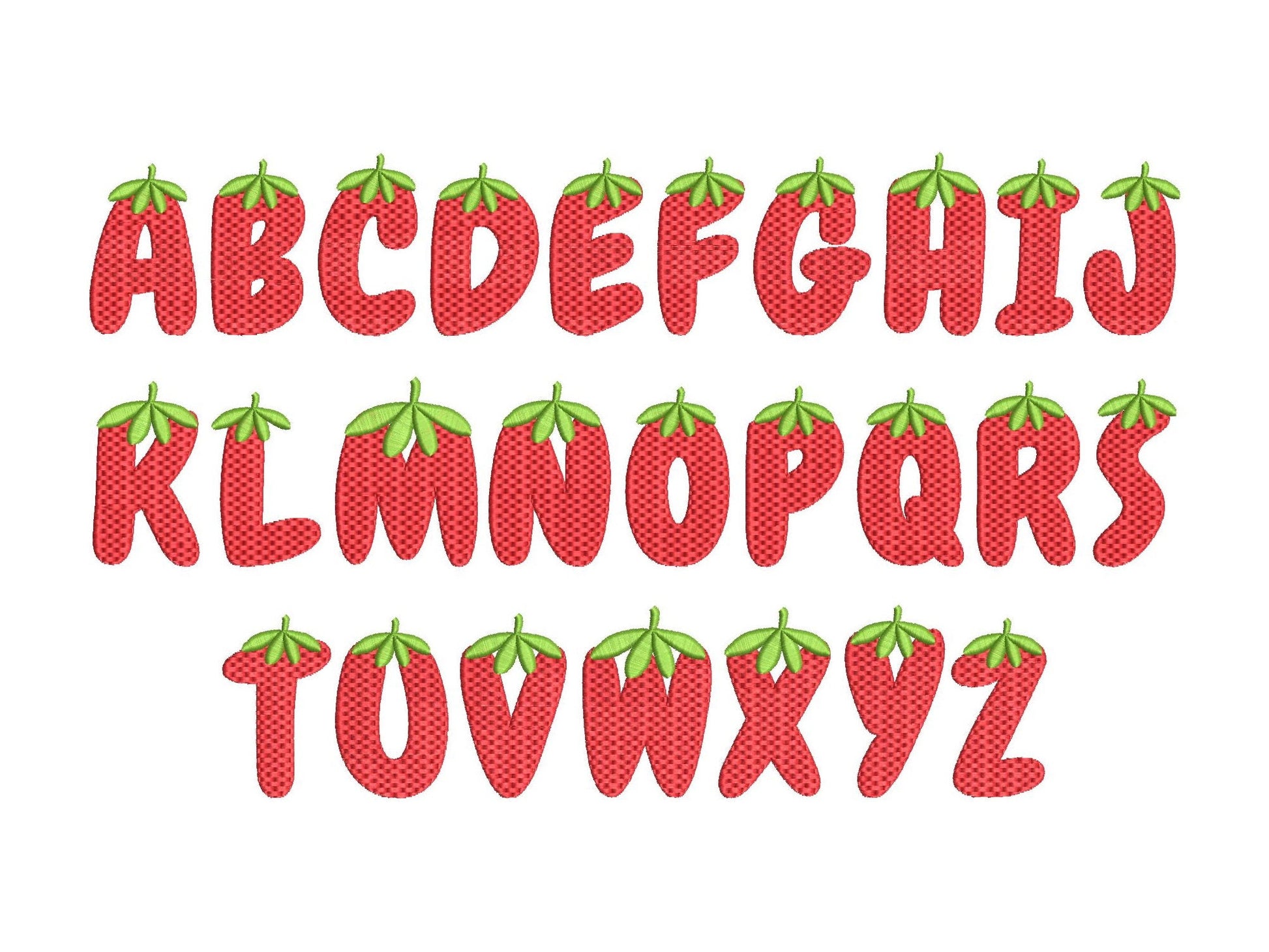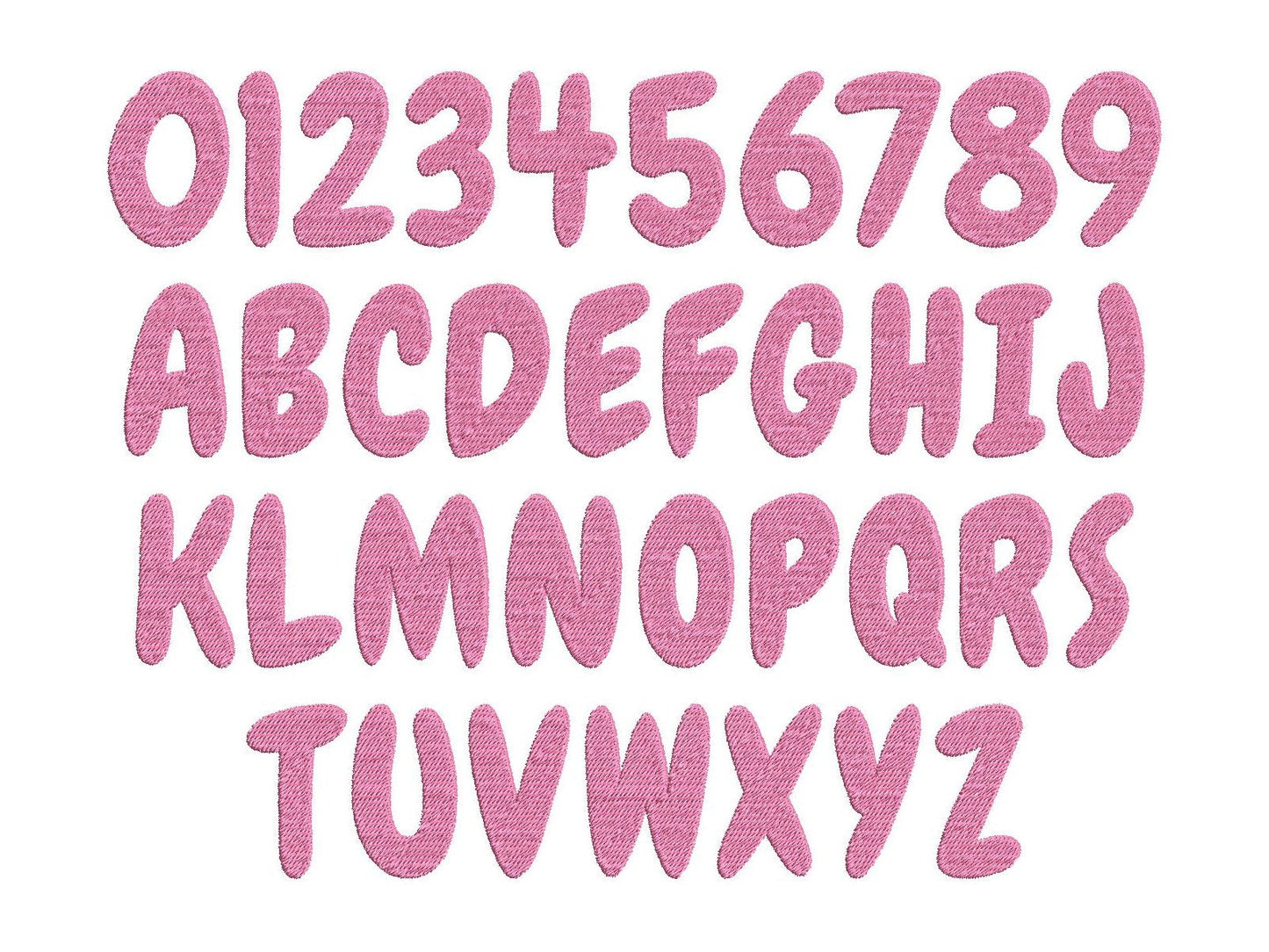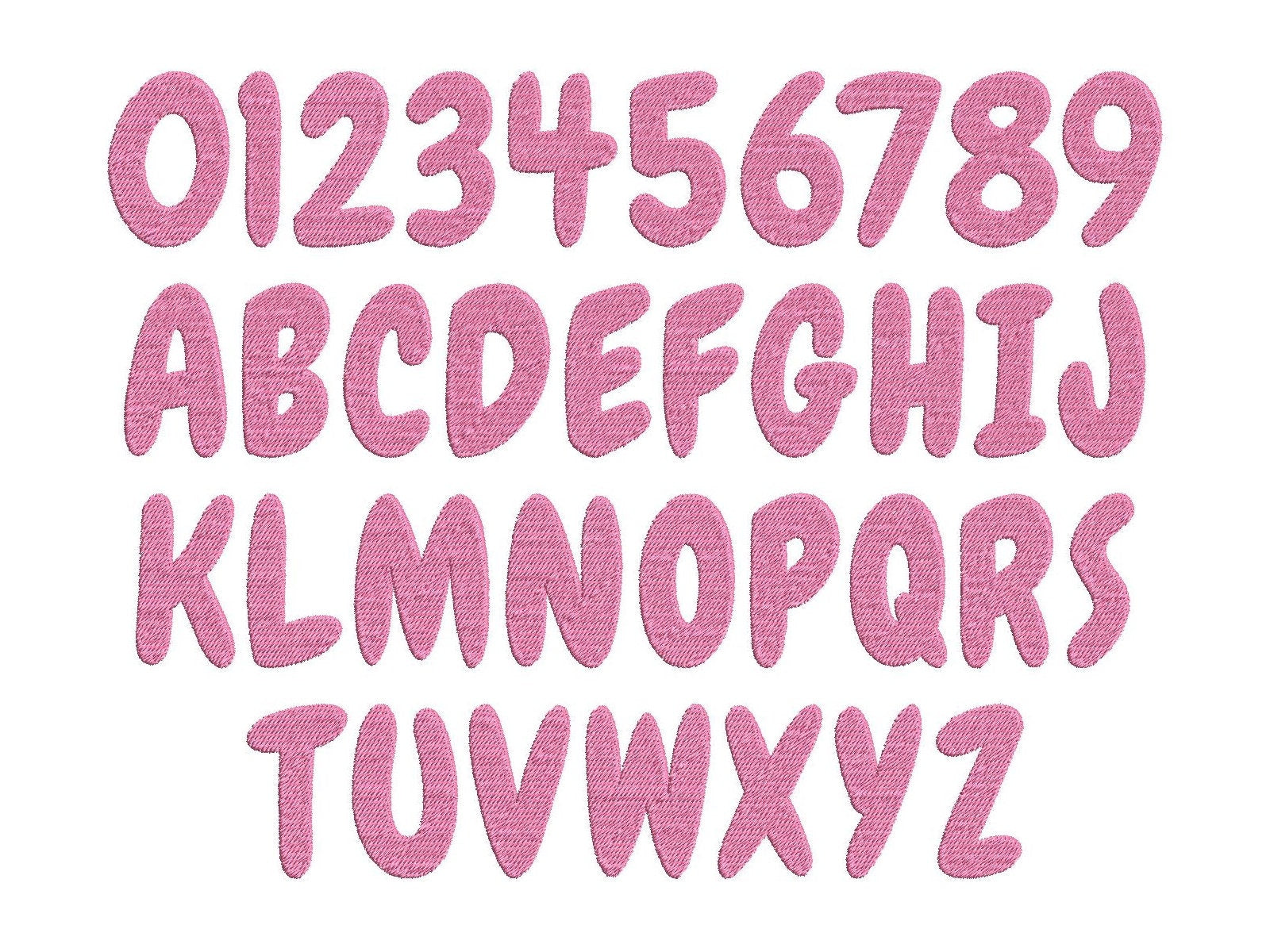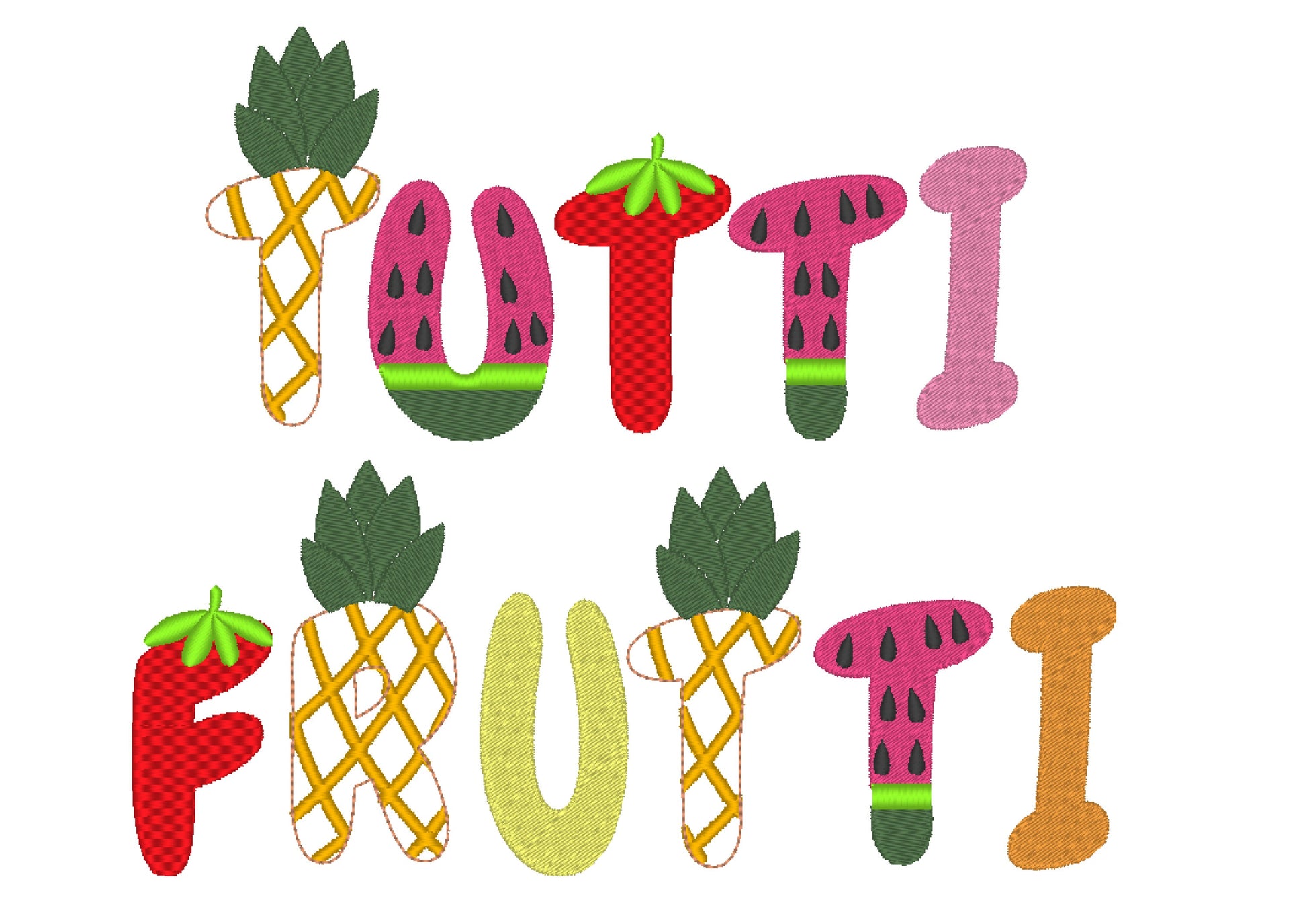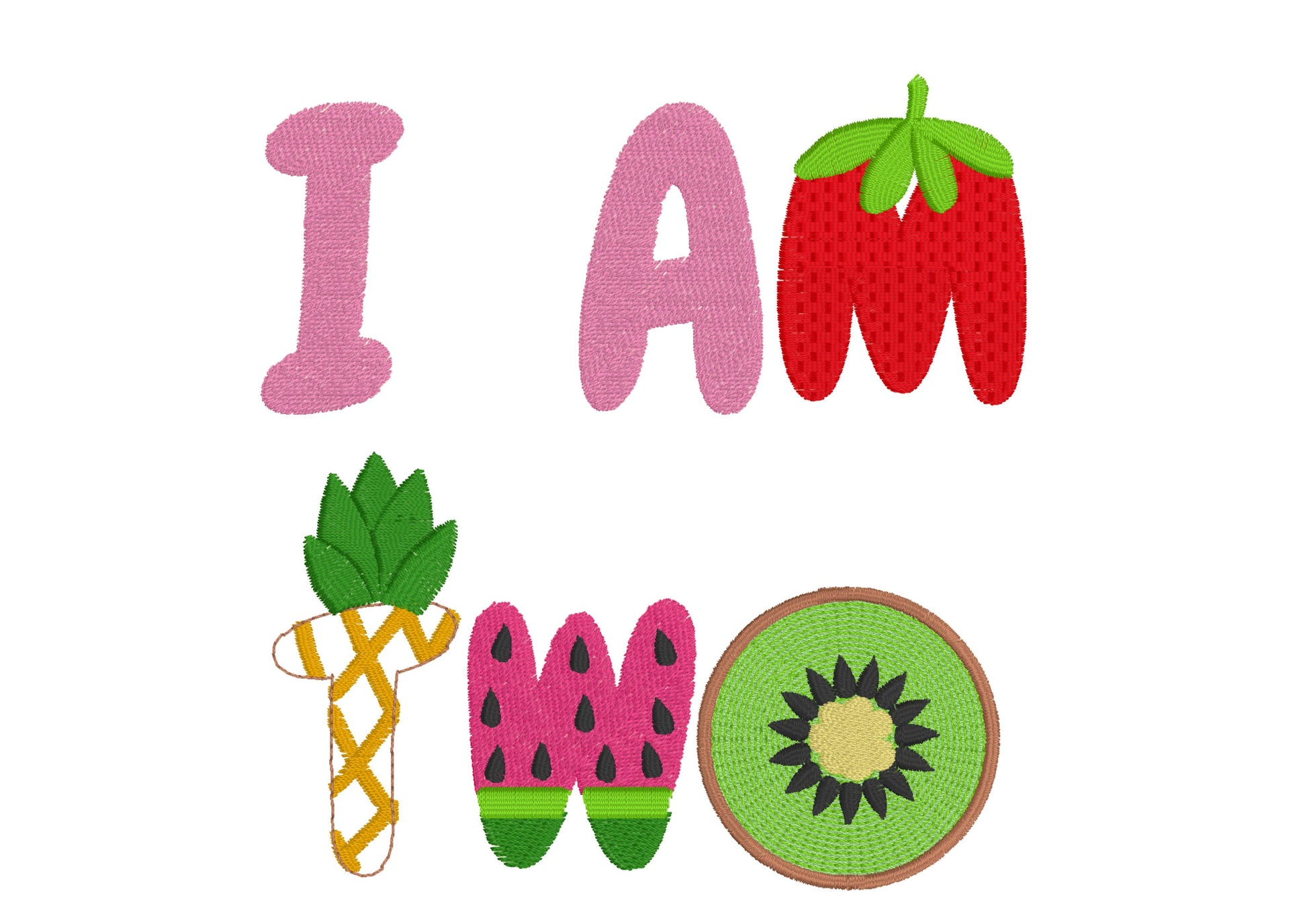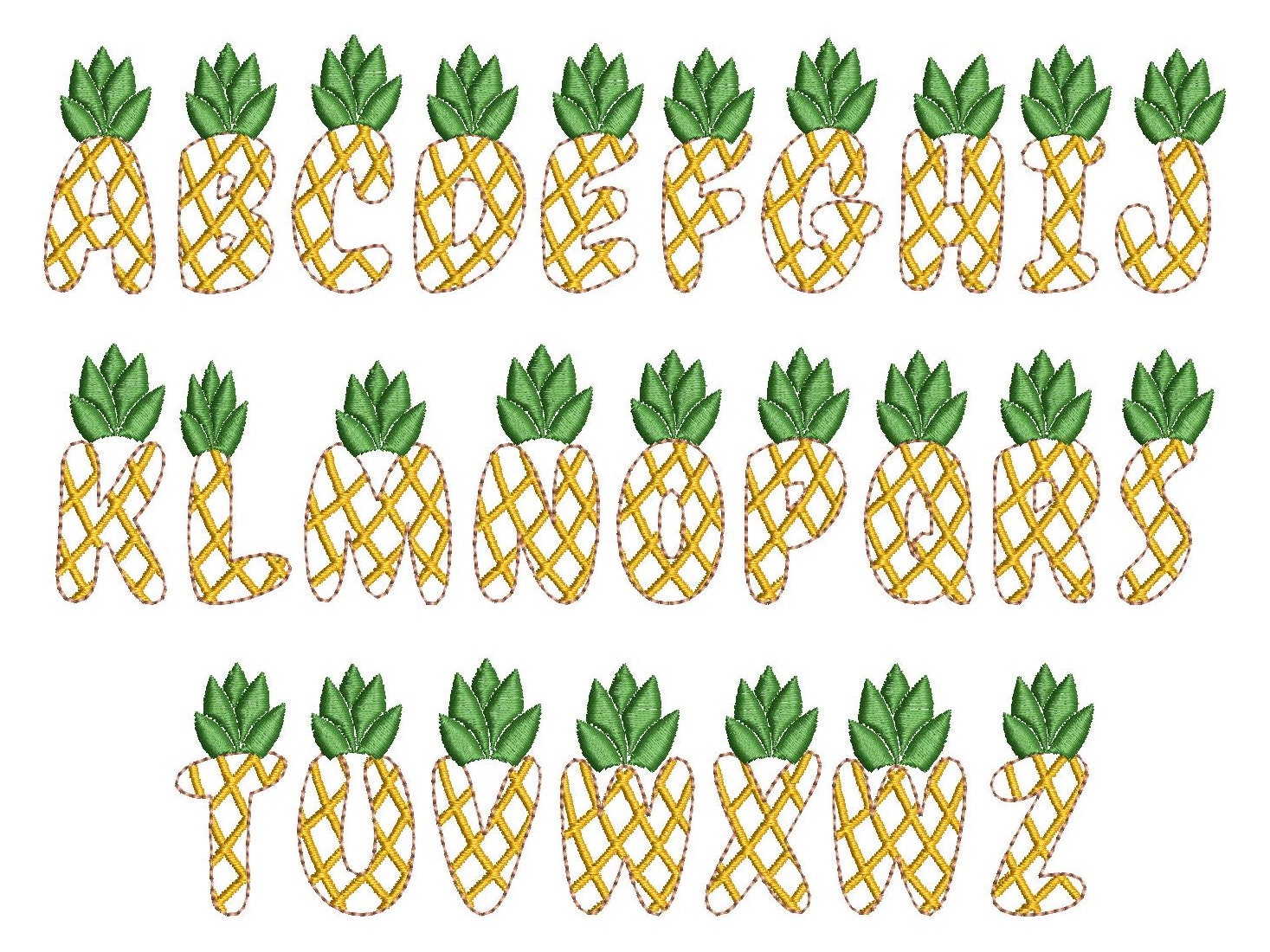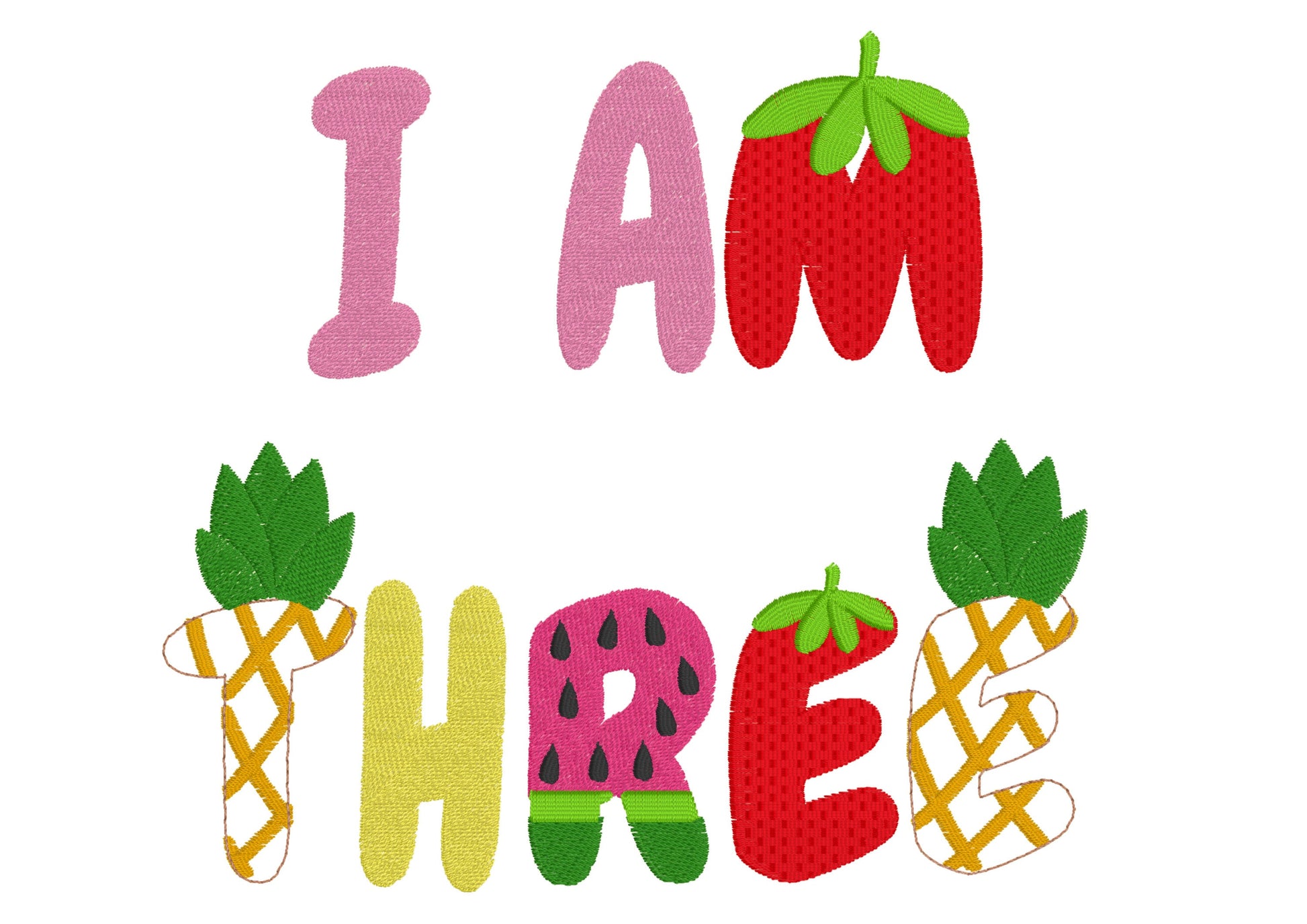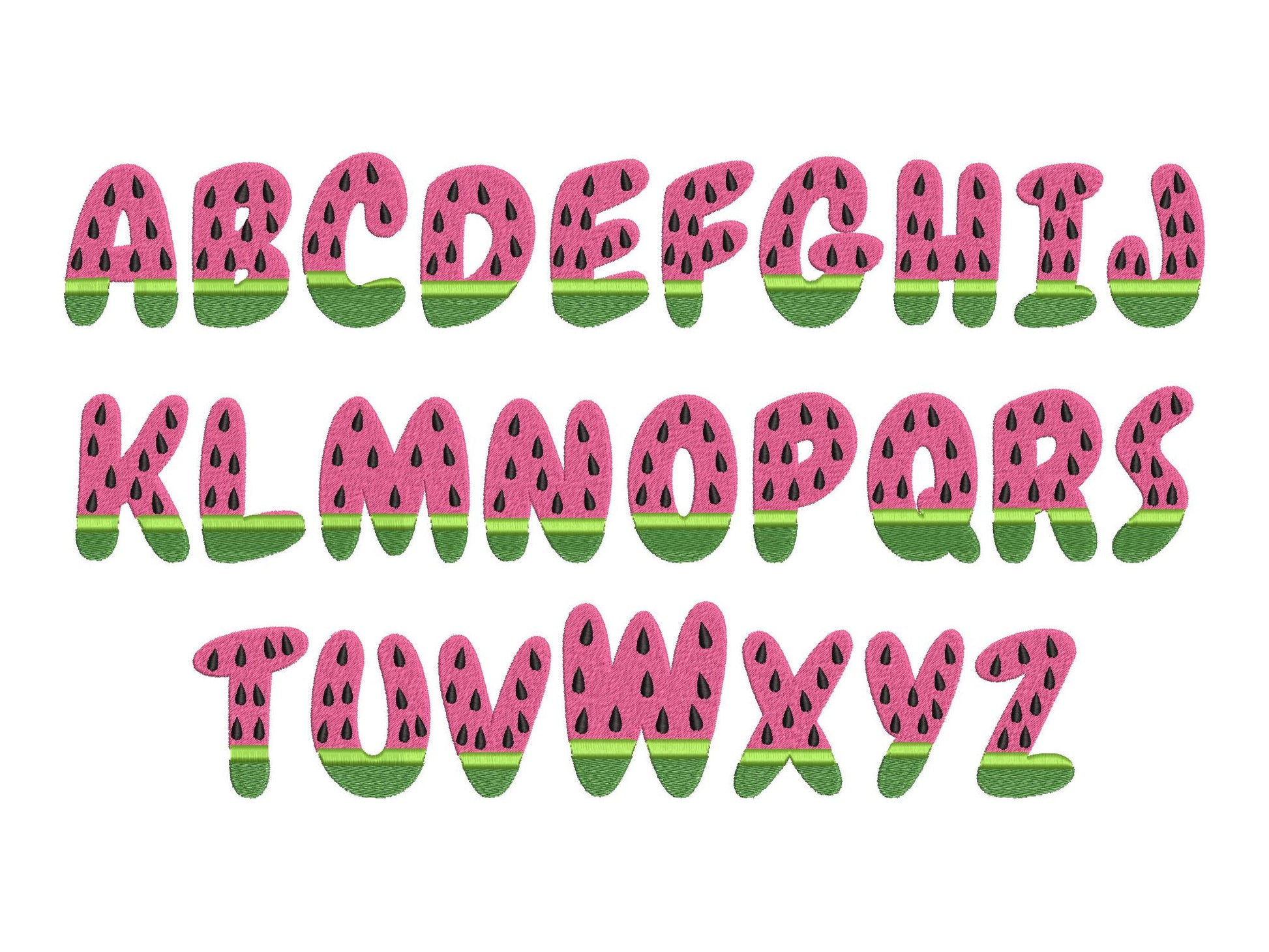
Tutti Frutti Fruit Font Set of 4
Or click to open the linkA fun set of four fruit fonts for kids' names and monograms. Great for summer shirts, aprons, bags and party decor.
Four fonts: a plain font with capital letters A to Z and numbers 0 to 9, plus watermelon, pineapple and strawberry fonts with capital letters A to Z. Sizes from about 1 to 3.4 inches, easy to mix and match.
- 4 fruit fonts: plain, watermelon, pineapple, strawberry
- Capital letters A to Z, numbers 0 to 9 in the plain font
- Sizes from 1 to 3.4 in